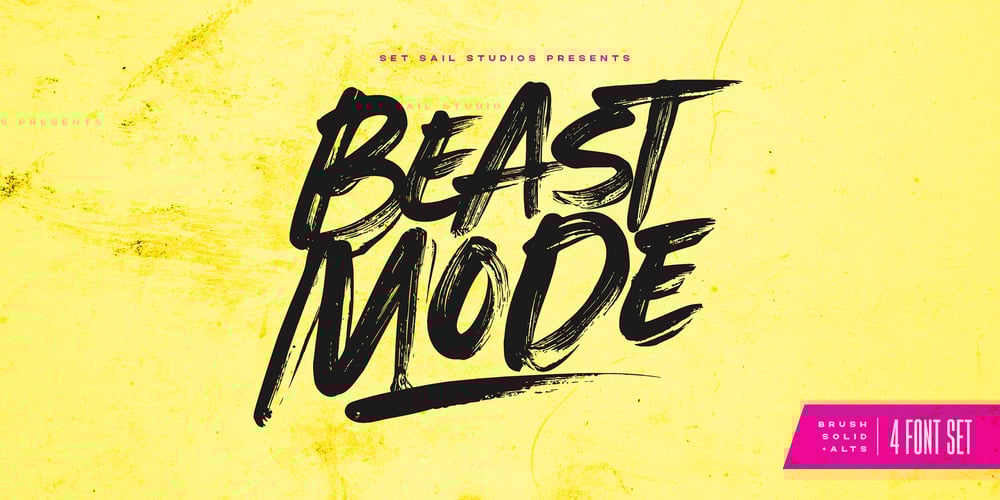
Beast Mode Font Family was designed by Sam Parrett and published by Set Sail Studios. Beast Mode contains 4 styles and family package options. Looking to inject some energy into your typography? It’s time to unleash Beast Mode—A bold & brazen, all-caps brush font ready to make its mark. Hand painted with a real paintbrush and acrylic paint, this exciting set of fonts includes 2 full sets of ‘uppercase’ (bigger caps) and ‘lowercase’ (smaller caps) characters. These Regular and Alternate sets are included in Brush (dry brush) and Solid (filled brush) variations of the paintbrush texture—giving you 4 variations of each letter for different layout and customisation options (try mixing them all up for a truly custom look!);Beast Mode BrushBeast Mode SolidBeast Mode Brush AltBeast Mode Solid AltLanguage Support • English, French, Italian, Spanish, Portuguese, German, Swedish, Norwegian, Danish, Dutch, Finnish, Indonesian, Malay, Hungarian, Polish, Croatian, Turkish, Romanian, Czech, Latvian, Lithuanian, Slovak, Slovenian.